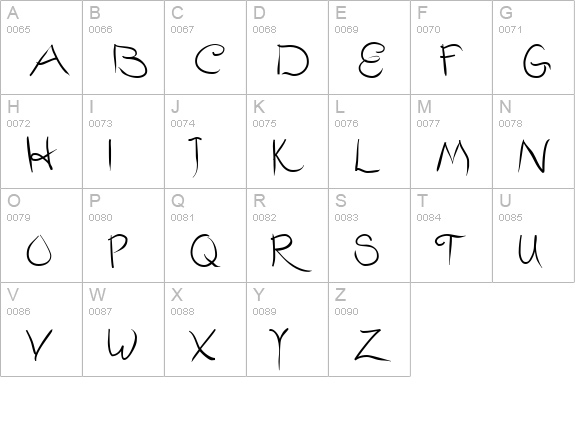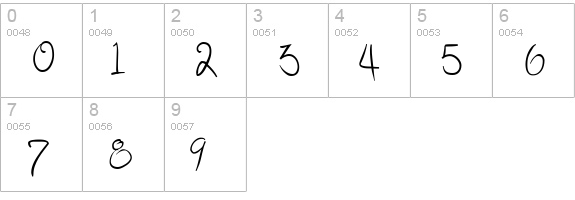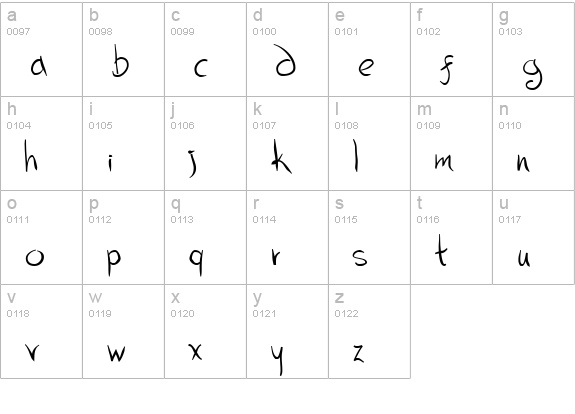
ChristmasGiftScriptA Font Details
Introducing ChristmasGiftScriptA font - a whimsical and festive typeface perfect for all your holiday design projects! This elegant script font features delicate curves and playful swashes that will add a touch of charm to your Christmas cards, invitations, and gift tags. With its graceful lines and classic appeal, ChristmasGiftScriptA font exudes warmth and cheer, capturing the spirit of the season in every letter. Best of all, ChristmasGiftScriptA font is available for free download at FontsMarket.com! Now you can easily add a touch of holiday magic to your designs without breaking the bank. Don't miss out on this wonderful opportunity to enhance your Christmas creations with this beautiful and versatile font. Download ChristmasGiftScriptA font today and let your creativity shine this holiday season!